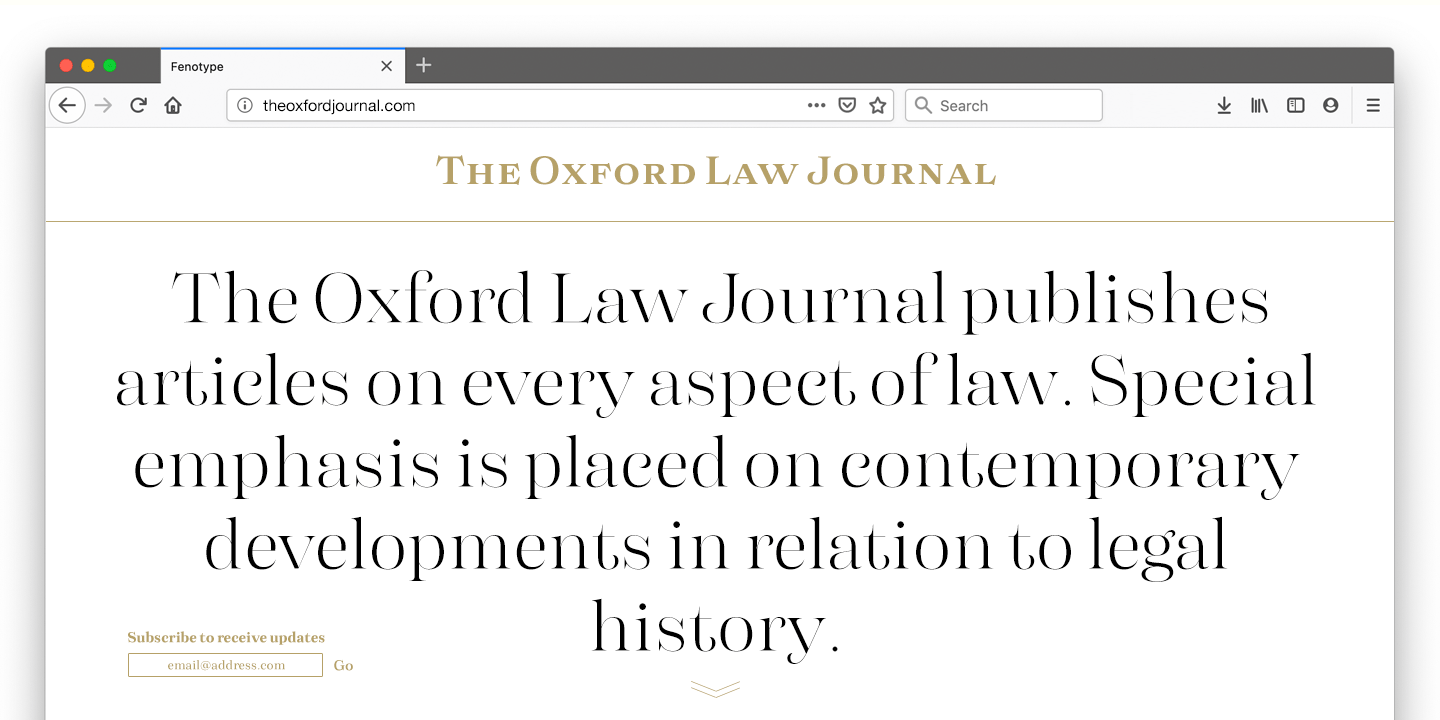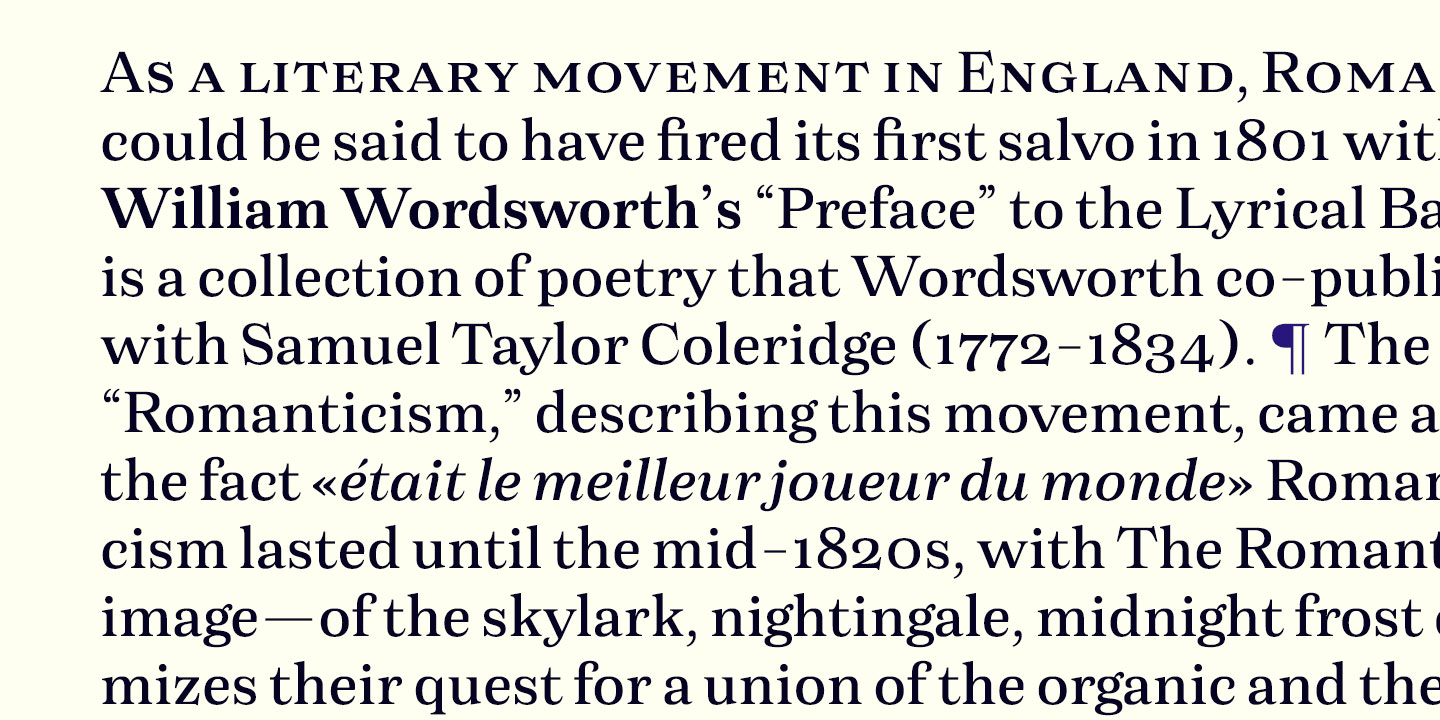
About Morison
Morison is an original but versatile serif family. With just about right amount of personality and character, it can stand out when needed, but works equally well in everyday tasks where legibility is the key. The Morison family consists of separate…